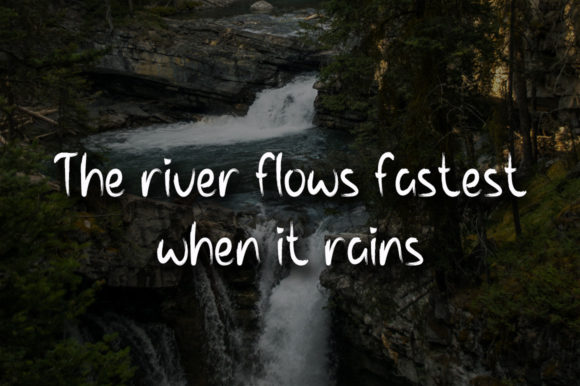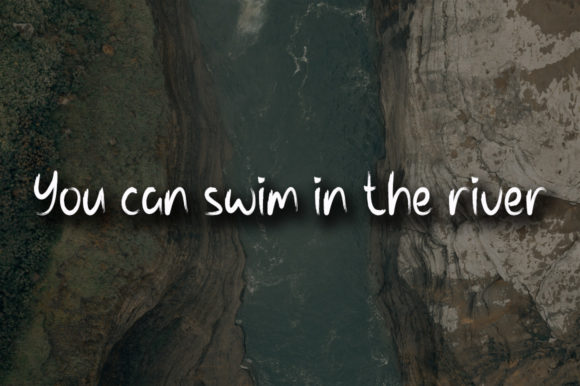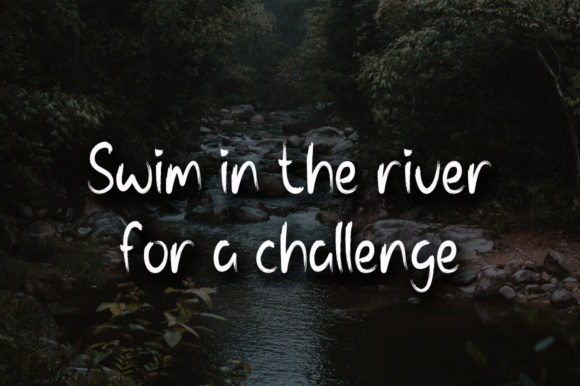
Introduction to River Flow Font
As a designer, there’s nothing quite like the rush of excitement when a new project comes to life. You’re brainstorming ideas, experimenting with different colors and textures, and searching for the perfect font to bring your vision to the forefront. And that’s exactly what River Flow Font is – a game-changer for any creative project. With its cool, brushed, handwritten style, this font is sure to elevate your designs and leave a lasting impression.
Whether you’re crafting a custom greeting card, designing a presentation, or working on a digital project, River Flow Font is the perfect design resource to have in your toolkit. Its high-quality design makes it a valuable addition to any creative arsenal, and the best part? It’s available for a free download, giving you the freedom to experiment and bring your ideas to life without breaking the bank.
With a transparent background and a unique, handwritten feel, River Flow Font is the perfect way to add some personality to your designs. So why settle for a generic font when you can have a high-quality, one-of-a-kind design element that sets your projects apart? Let’s dive in and explore the world of River Flow Font together!
Key Features of River Flow Font
- High-quality design resource with a unique, flowing style, perfect for creative projects.
- Unique, hand-drawn design with a natural, organic feel, ideal for creating visually appealing and engaging content.
Honest Review: River Flow Font
As a designer, I’m always on the lookout for high-quality design resources to elevate my creative projects. Recently, I stumbled upon the River Flow Font, and I’m excited to share my honest review.
What works well about this font is its unique, flowing design. The transparent background and subtle texture give it a modern, organic feel that’s perfect for digital design. I love how it adds a touch of elegance to my projects without overpowering the content.
- ✨ Unique and flowing design
- ✨ Modern and organic feel
- ✨ High-quality, crisp lines
However, there are some limitations to consider. The River Flow Font may not be suitable for projects that require a bold, attention-grabbing font. Additionally, the transparent background may not be compatible with all design software or formats.
- ⚠️ May not be suitable for bold, attention-grabbing projects
- ⚠️ May not be compatible with all design software or formats
Overall, I’m impressed with the River Flow Font. Its unique design and high-quality lines make it a great addition to my design resource library. While it may have some limitations, I believe it’s a valuable tool for any designer looking to add some creativity to their projects.
For getting the most out of the River Flow Font, try combining it with other design elements such as images or shapes. This font is perfect for creating eye-catching social media graphics, posters, or flyers. It’s also great for adding a unique touch to presentations, reports, or documents.